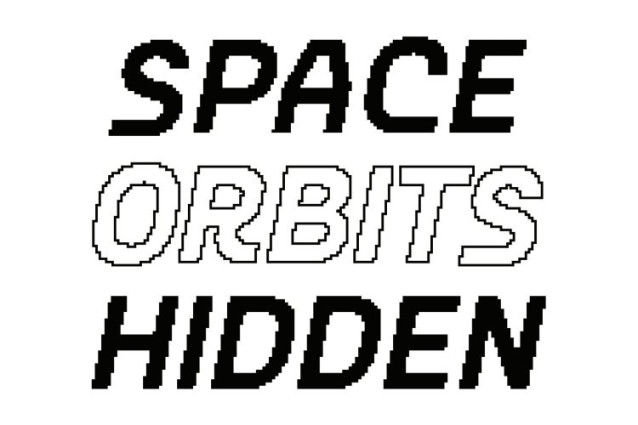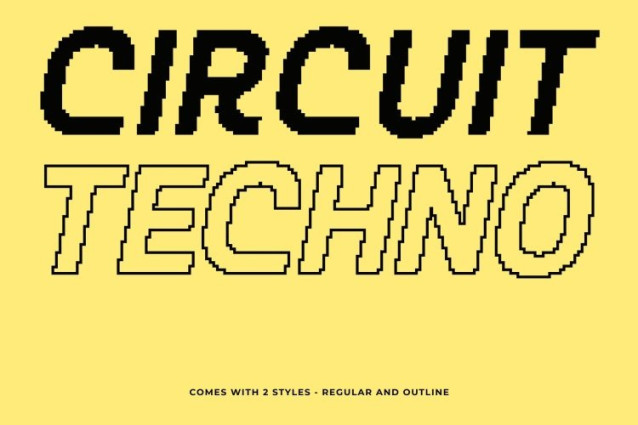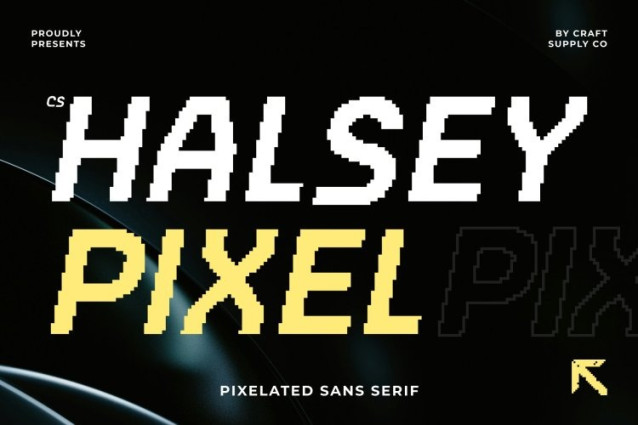
CS Halsey Pixel Font
CS Halsey Pixel Font This is a clean and minimalist sans-serif font that blends contemporary modernity with subtle pixel-inspired details. Its crisp, geometric forms ensure clarity and readability, while the pixel touches give it a retro digital edge reminiscent of old-school 8-bit displays. The result is a font that feels both professional and nostalgically techy.
Versatile for Contemporary and Digital Designs
Perfect for branding, editorial layouts, web interfaces, and UI design, this font adapts seamlessly across contexts. Its clean lines maintain readability at any size, while the pixel accents inject character and modern flair, making it ideal for projects that balance professionalism with a hint of digital nostalgia.
Professional, Readable, and Eye-Catching
This font delivers a polished, professional impression without sacrificing uniqueness. The geometric letterforms ensure visual harmony, while the pixel detailing adds subtle texture, making your content stand out with both clarity and personality.
Ideal for Modern, Retro-Inspired, and Digital Projects
From corporate branding to websites, tech interfaces, or editorial headlines, this font brings a fresh, modern approach infused with retro digital charm. Its combination of functionality, readability, and pixel-style character makes it a versatile choice for designers seeking contemporary elegance with a nod to the classic digital era.